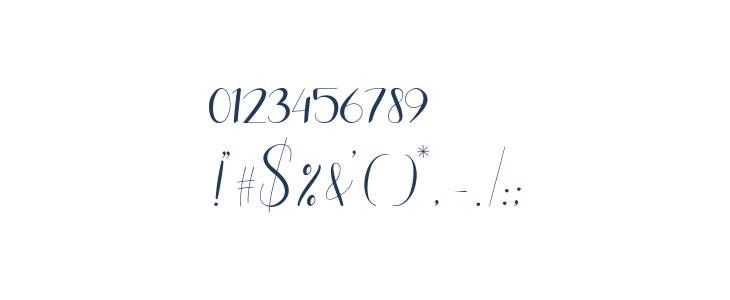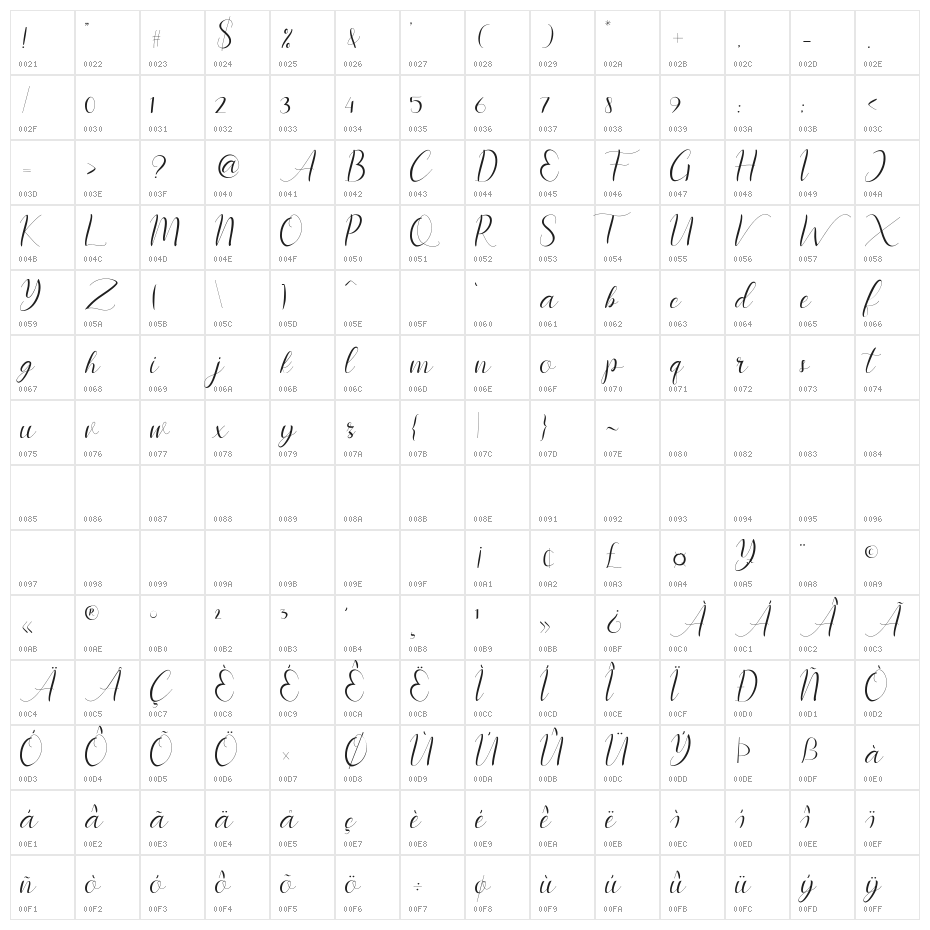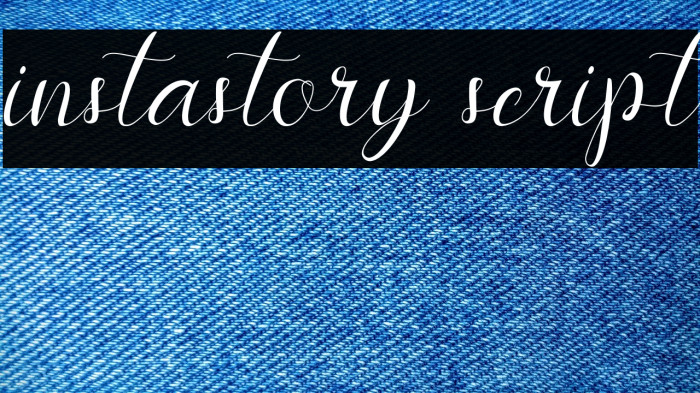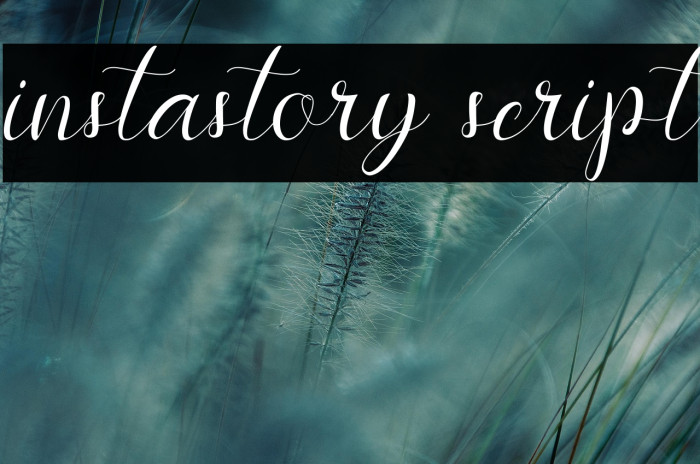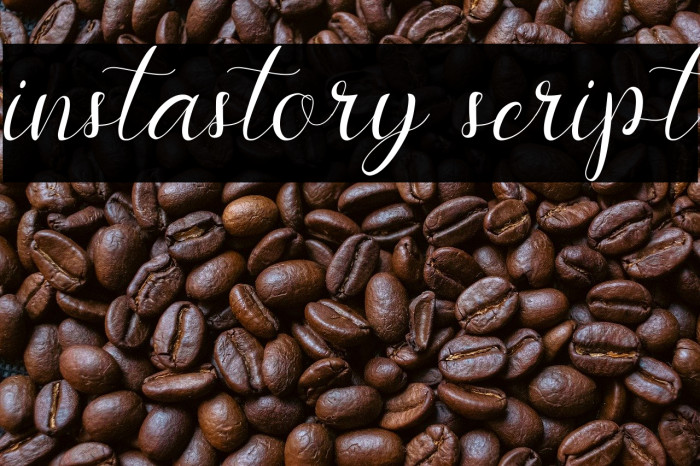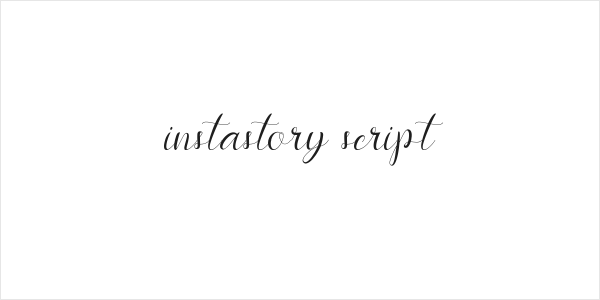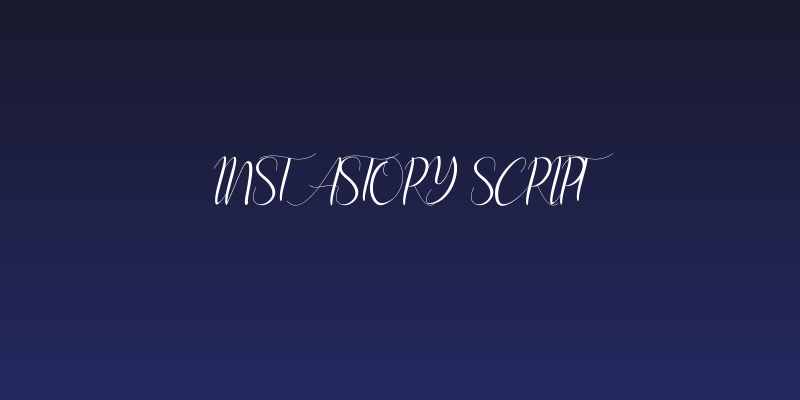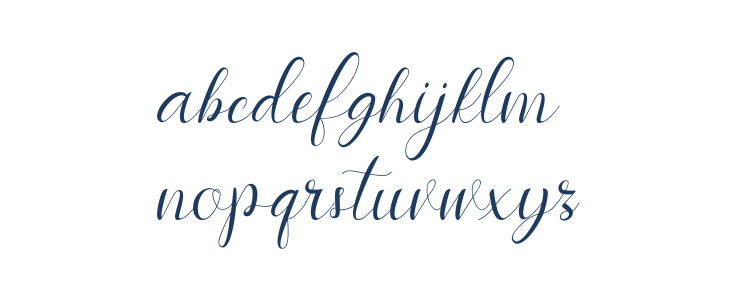
instastory script Font
instastory script Description
This elegant script font features a flowing, cursive style with graceful, elongated strokes and a sophisticated appearance. The uppercase letters are characterized by their sweeping curves and loops, while the lowercase letters maintain a consistent fluidity, creating a harmonious balance. The numerals and special characters are designed with the same attention to detail, ensuring a cohesive look across all elements. This font's delicate lines and artistic flair make it ideal for projects that require a touch of elegance and refinement.
| Overall Style | Elegant, Decorative |
| Proposed Projects | Ideal for wedding invitations, greeting cards, branding, and elegant logo designs. |